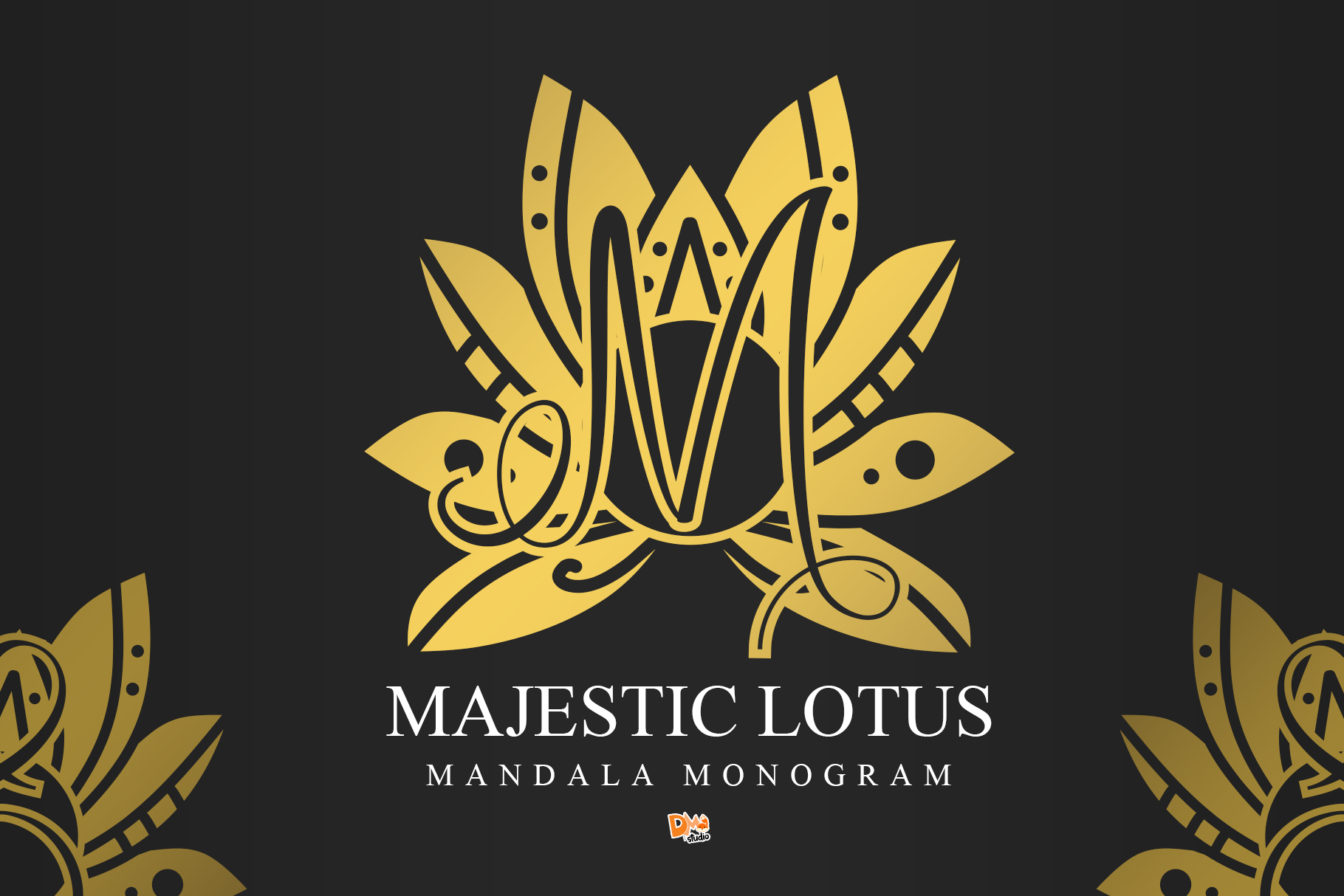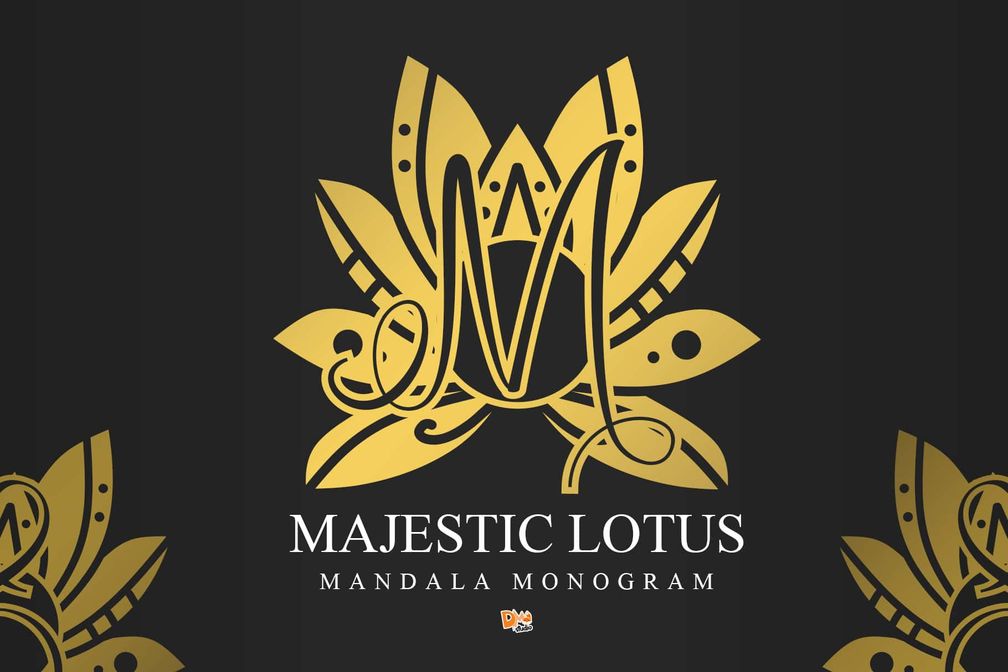
Majestic Lotus Mandala Monogram
Majestic Lotus Mandala Monogram – Ornate & Regal Mandala Monogram Font
Majestic Lotus Mandala Monogram is an intricate and elevated display font that embodies the symbolic grace of the lotus flower fused with regal mandala artistry. Designed to bring a majestic and luxurious flair to your projects, it’s perfect for wedding monograms, spiritual branding, elegant packaging, and high-end personalized creations.
• Royal Mandala Detailing: Each letter is beautifully decorated with complex lotus mandala patterns.
• Elegant & Ornamental: Ideal for invitations, upscale branding, spa or wellness products, and bohemian-inspired designs.
• Decorative Grandeur: Offers a rich, spiritual, and majestic visual language for your text.
• Full Character Set: Includes uppercase, lowercase, numerals, punctuation, and multilingual support.